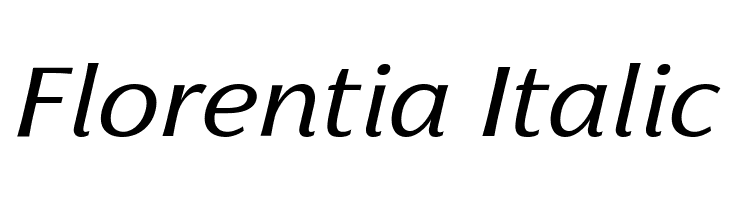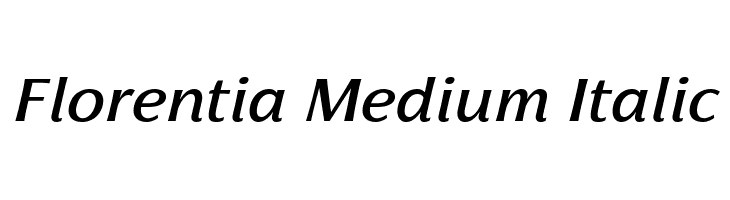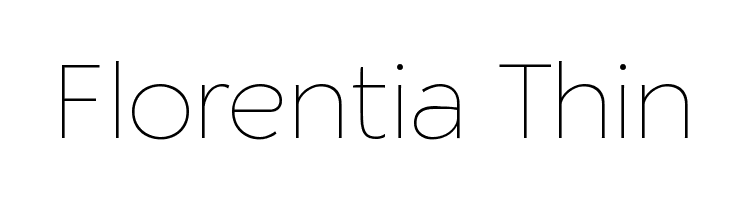
An elegant and flowing italic font with smooth curves and a refined style.
A modern, elegant typeface with smooth strokes and a refined appearance.
A light, italic typeface with elegant curves and a classic aesthetic.
A modern, versatile font with balanced structure and medium contrast.
An elegant italic font with smooth curves and medium weight, ideal for refined designs.
A modern sans-serif typeface with clean lines and balanced proportions.
A sleek, modern font with thin, clean lines and a minimalist aesthetic.
A sleek, thin, and italicized font with a modern and elegant style.